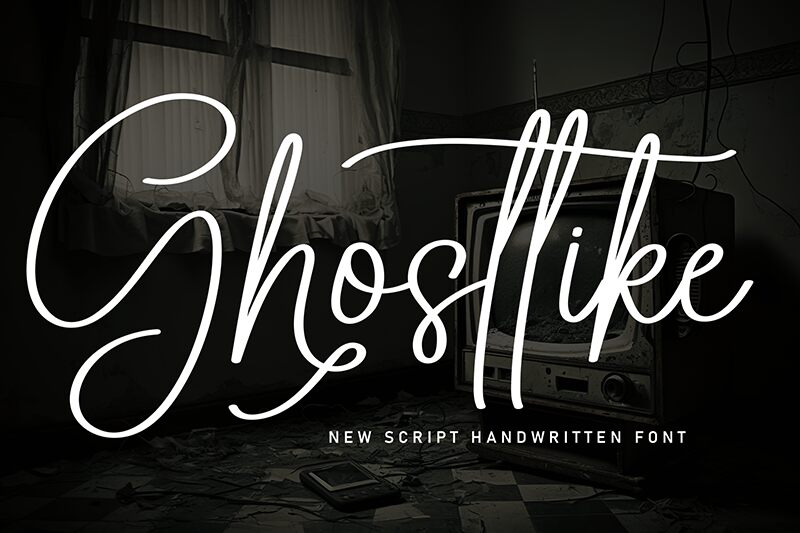
Ghostlike font by Scratchones is a free handwritten font designed to evoke an expressive, modern, and artistic feel in projects. It features gracefully flowing letterforms with slender, upright lowercase letters and an interconnected structure – a combination that brings together an inviting, sophisticated, and personalized look rarely found in fonts in similar genres. The font has a few select ligatures and prioritizes an authentic handwritten look through its inconsistent slants and letter shapes.
Use this modern, handwritten font to create personalized signature logos, branding elements, and stationery. Get more out of it with business cards, flyers and brochures, social media graphics, wedding invitations, and typography overlays over images. Ghostlike font is further ideal for magazine cover designs, quotes, posters, and invitations for social events.